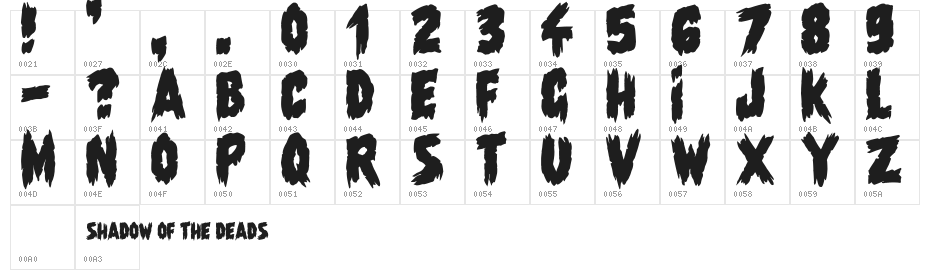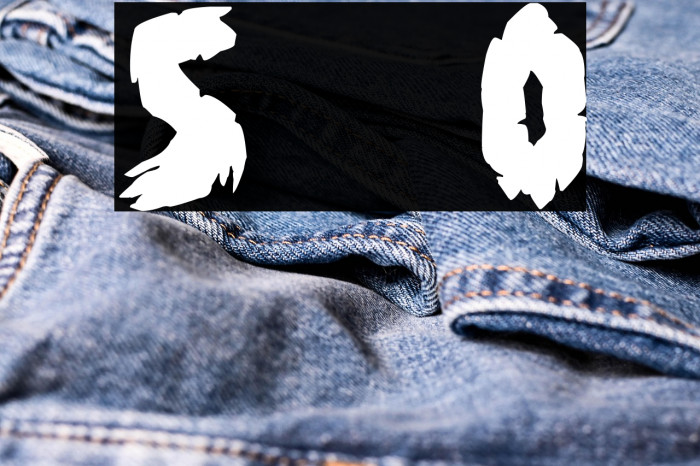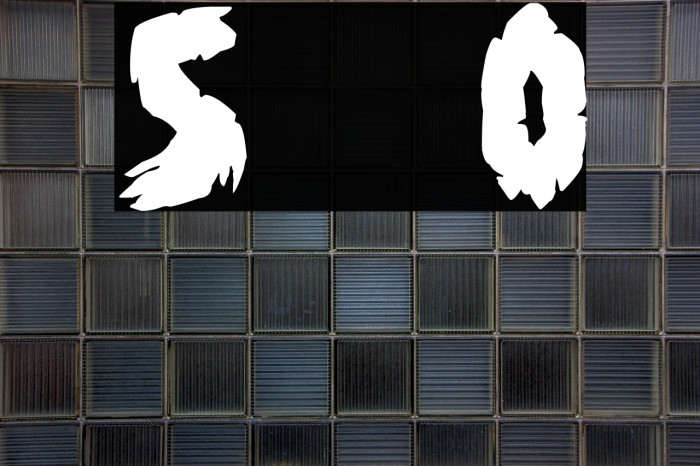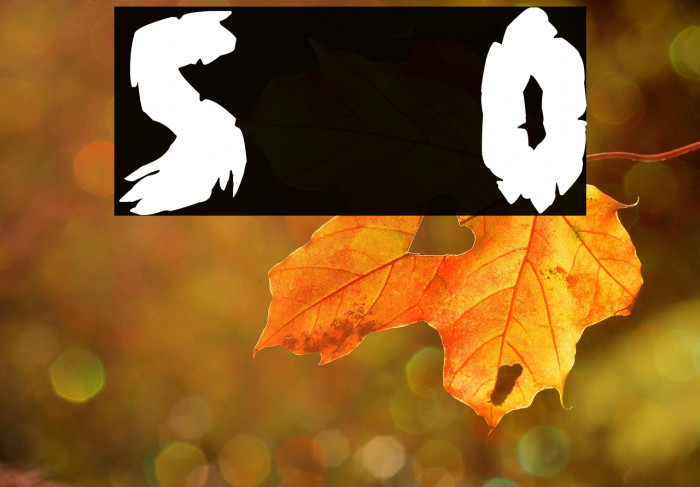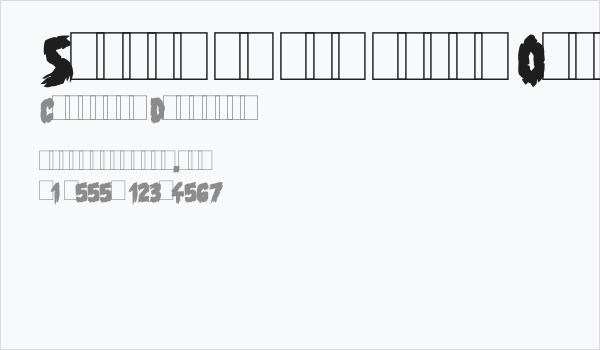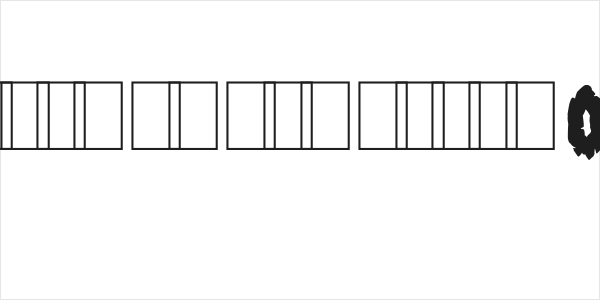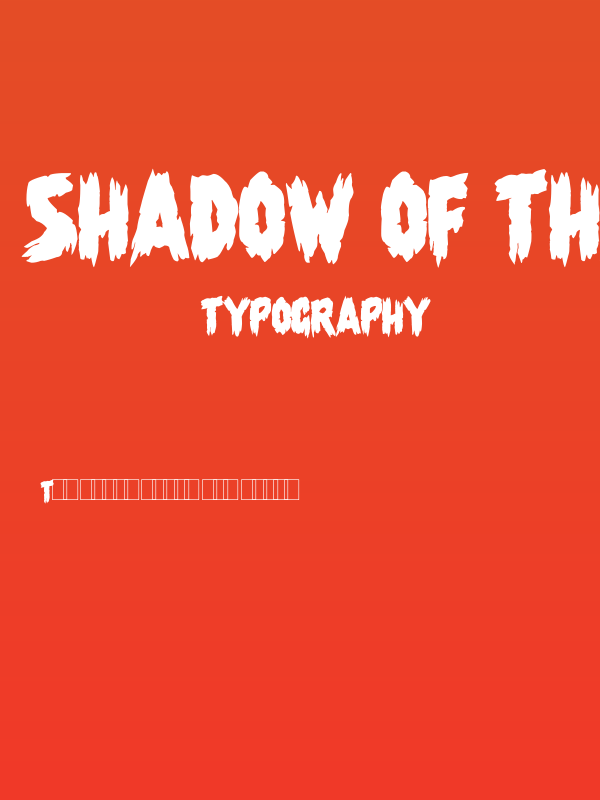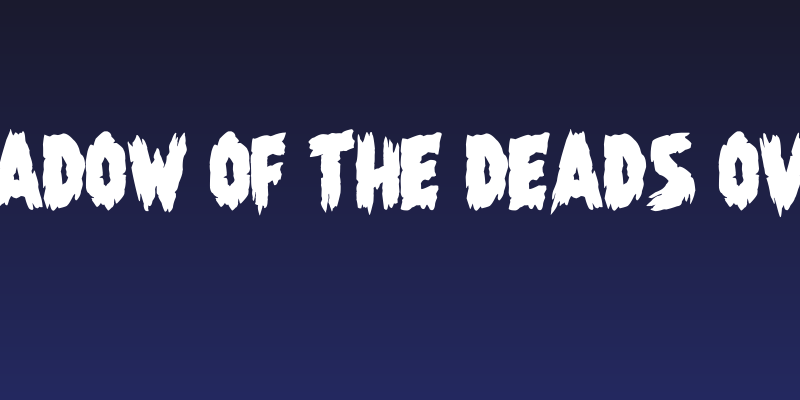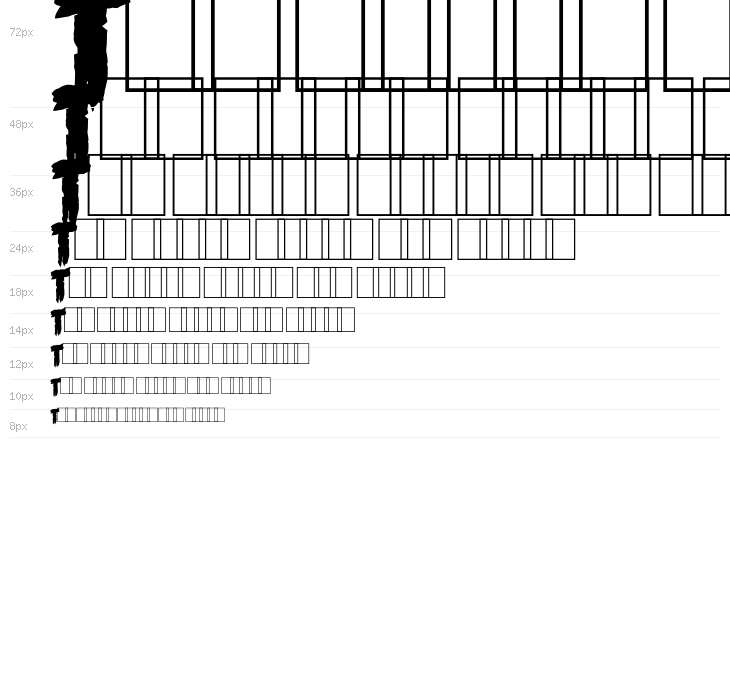
Shadow of the deads Over Font
Shadow of the deads Over Description
This font features a bold, jagged style that evokes a sense of horror and intensity. The characters appear as if they are torn or shredded, with uneven edges and a dynamic, chaotic appearance. The uppercase and lowercase letters maintain a consistent theme, with exaggerated strokes and a rough texture that adds to the unsettling aesthetic. Numbers and special characters follow the same design, ensuring a cohesive look throughout. This font is ideal for projects that require a dramatic and eerie impact.
| Proposed Projects | Ideal for horror movie posters, Halloween event flyers, video game titles, and any project needing a dramatic, eerie effect. |